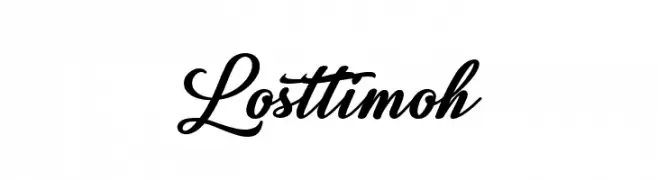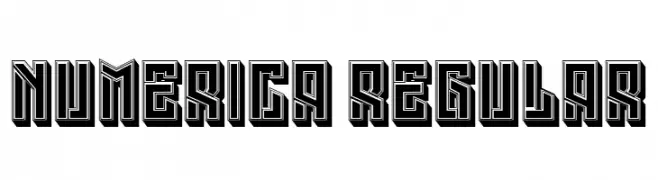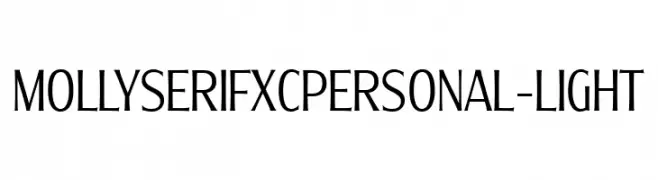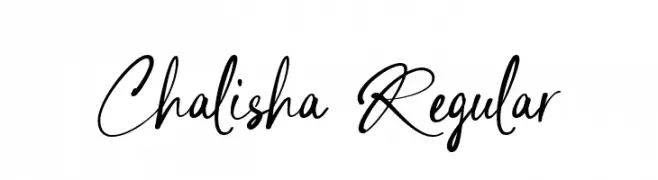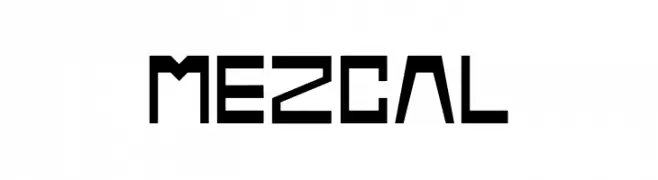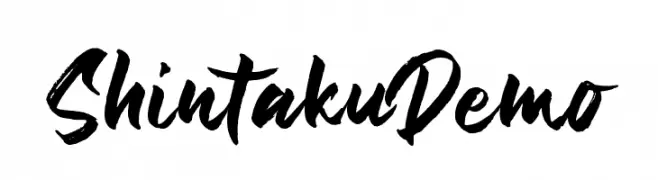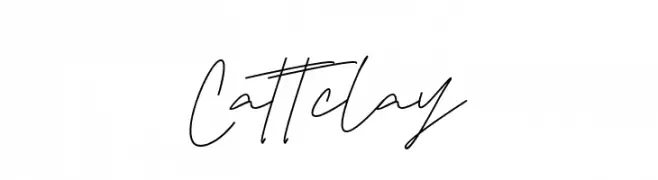
An elegant, flowing script font with a classic and sophisticated style.
A bold, geometric font with a 3D effect, ideal for modern and impactful designs.
A modern serif font with elegant, elongated characters and balanced serifs.
An elegant, flowing script font with a natural handwriting style.
A bold, geometric font with a modern, industrial aesthetic.
A Gothic-inspired font with sharp, intricate details and a dramatic style.
A decorative cursive font with elegant loops and swirls.
A bold, expressive brush script font with dynamic and fluid strokes.
A casual, handwritten font with a light and fluid style.
An edgy, thorn-like font with sharp, irregular strokes.